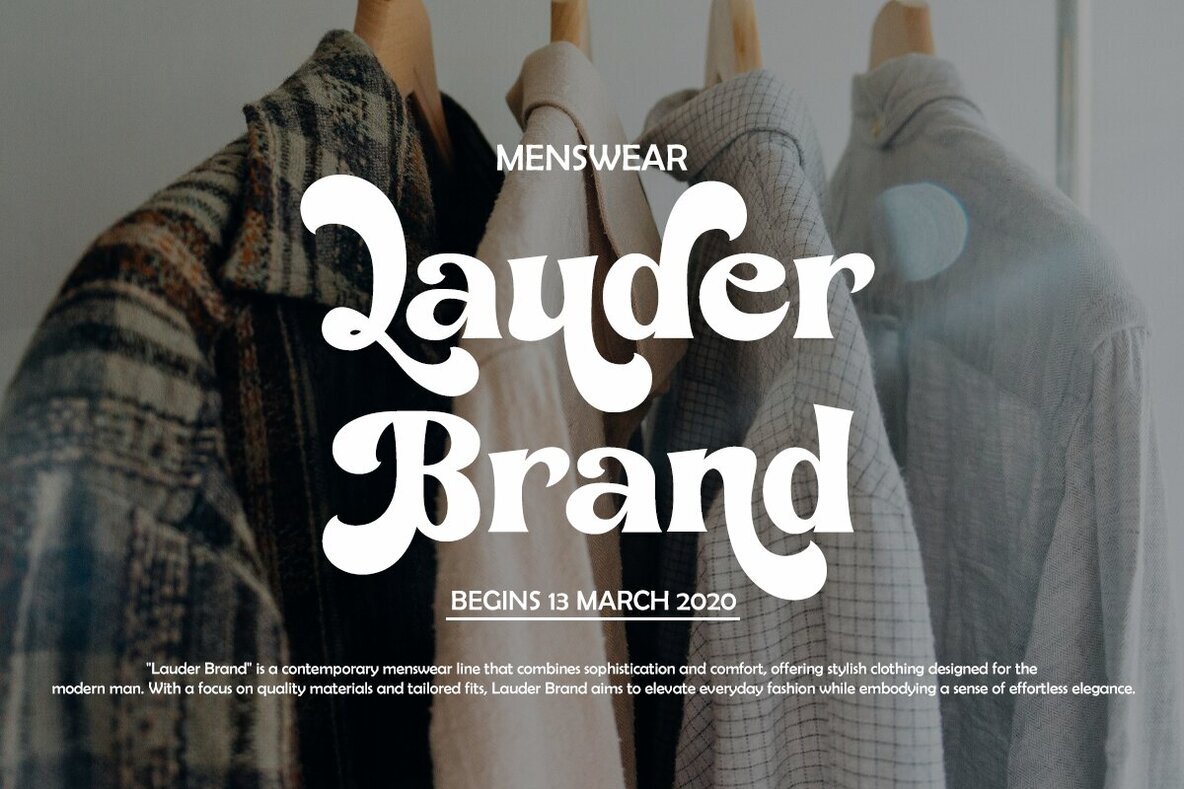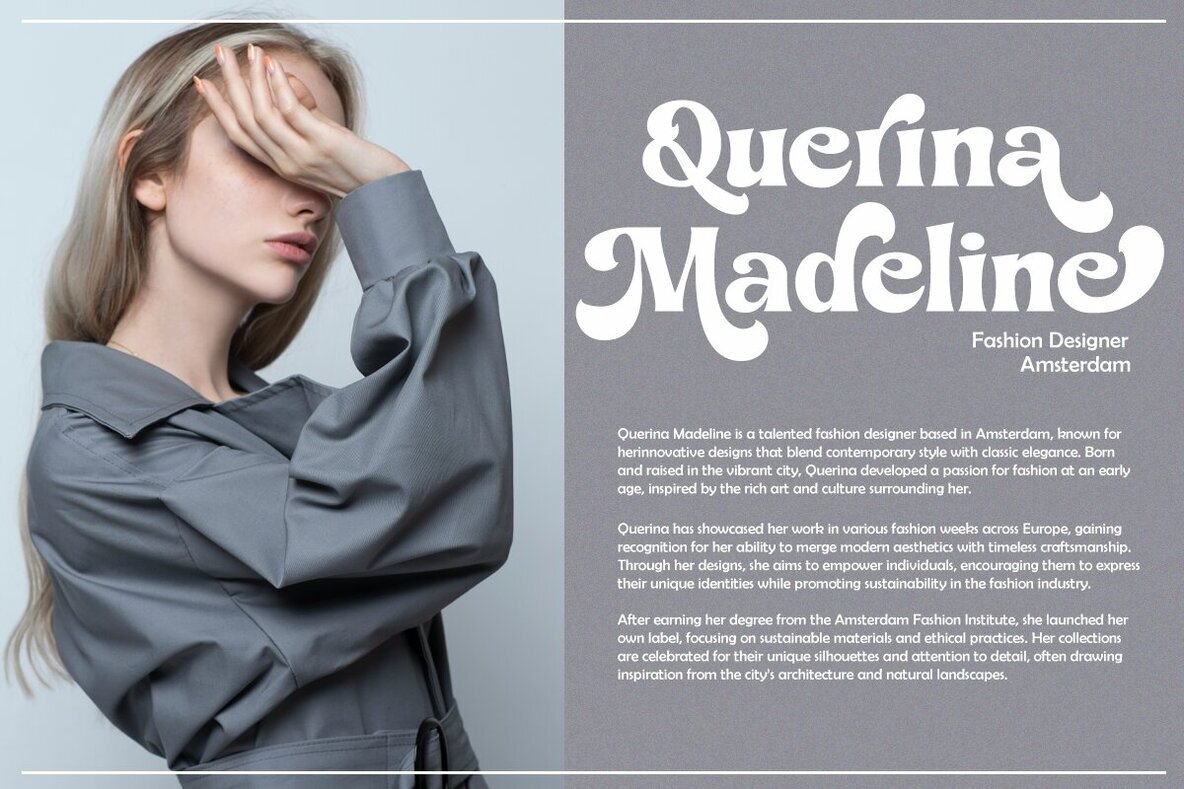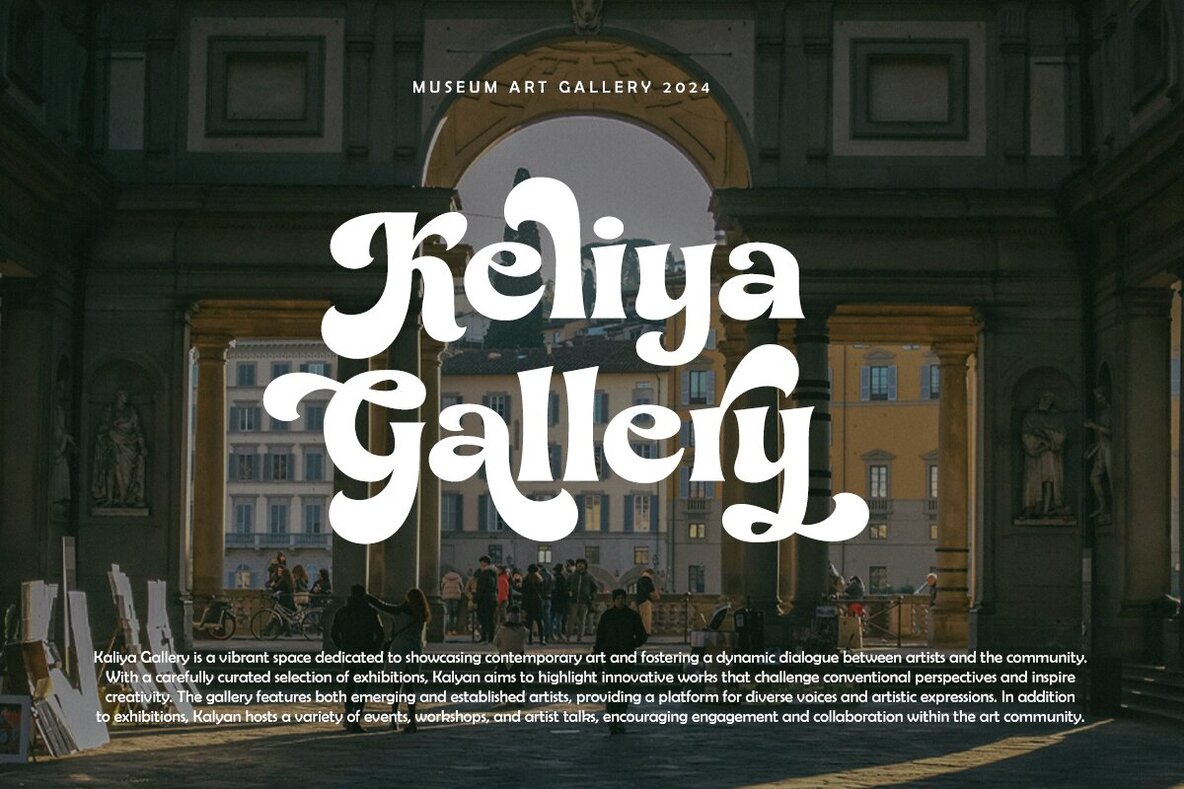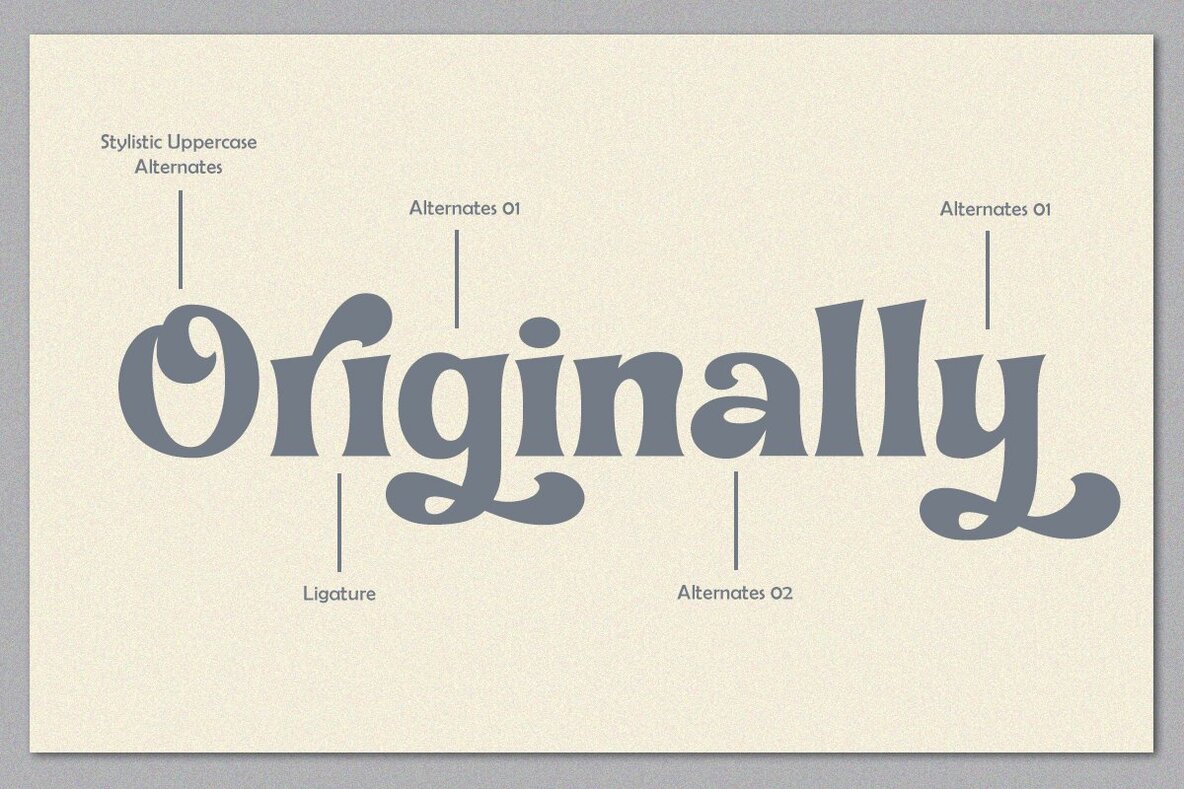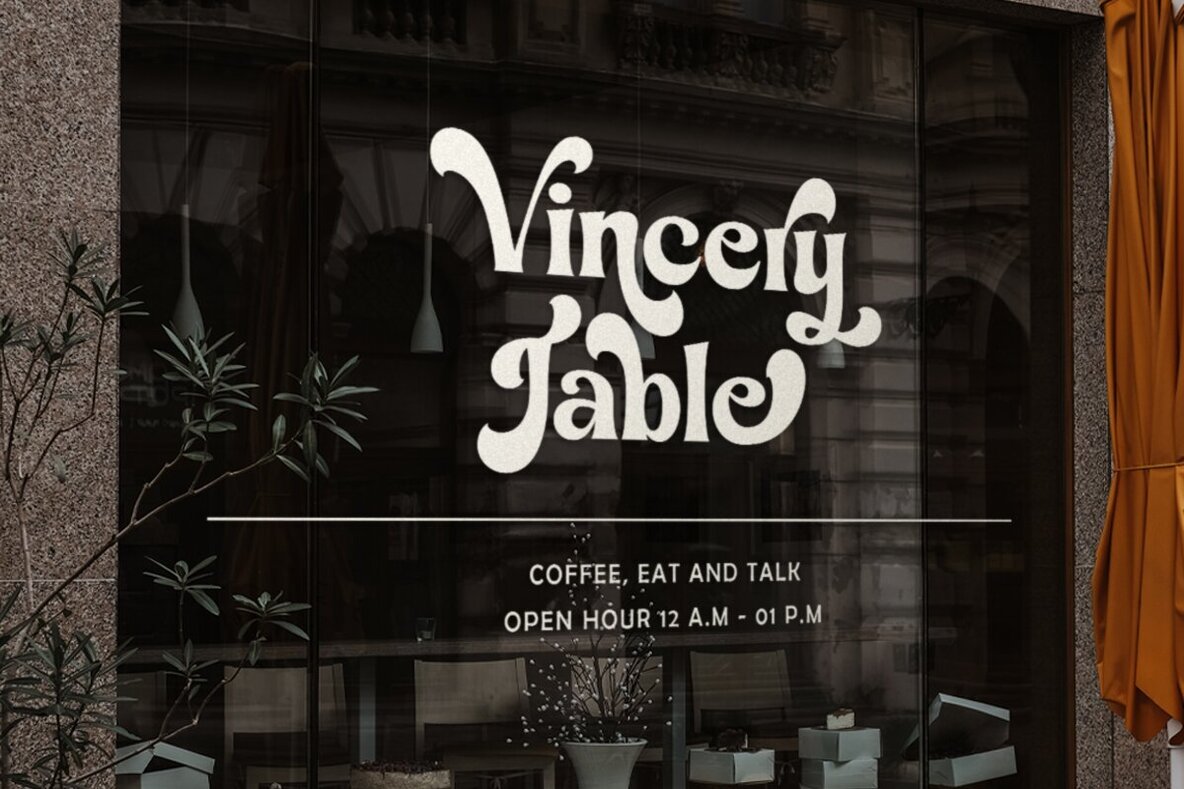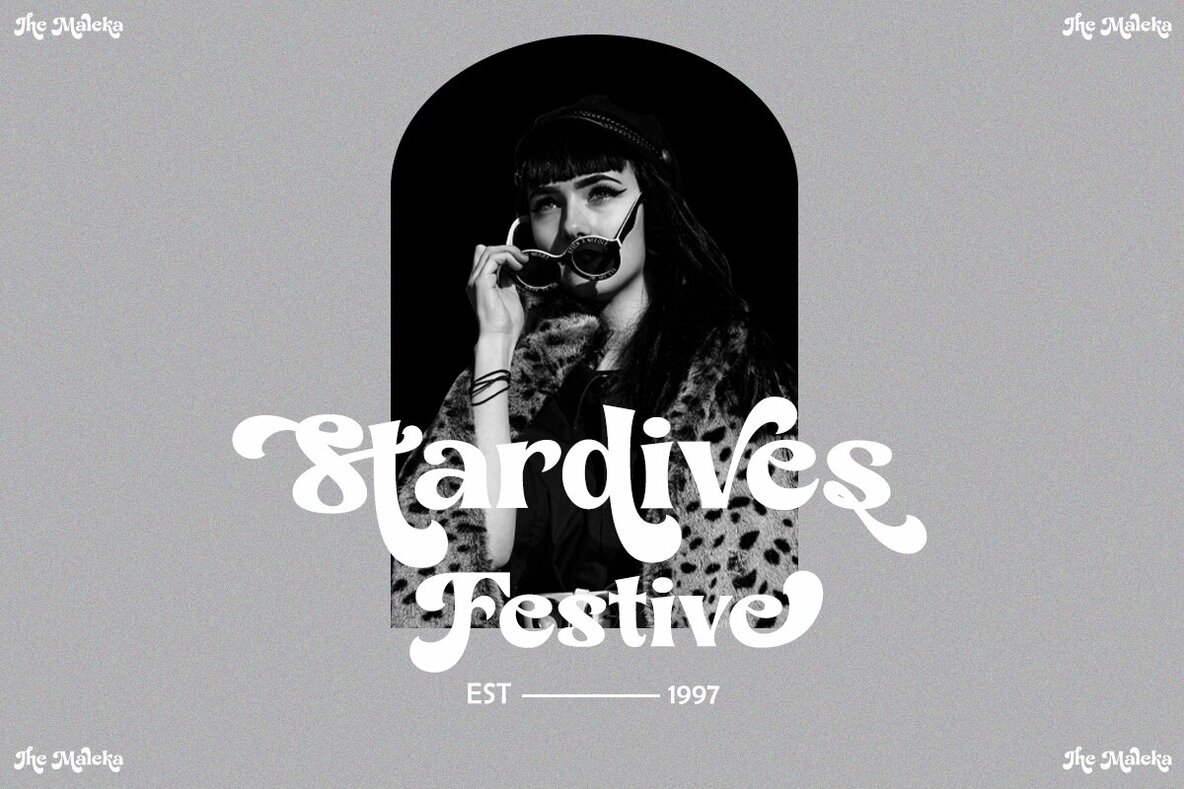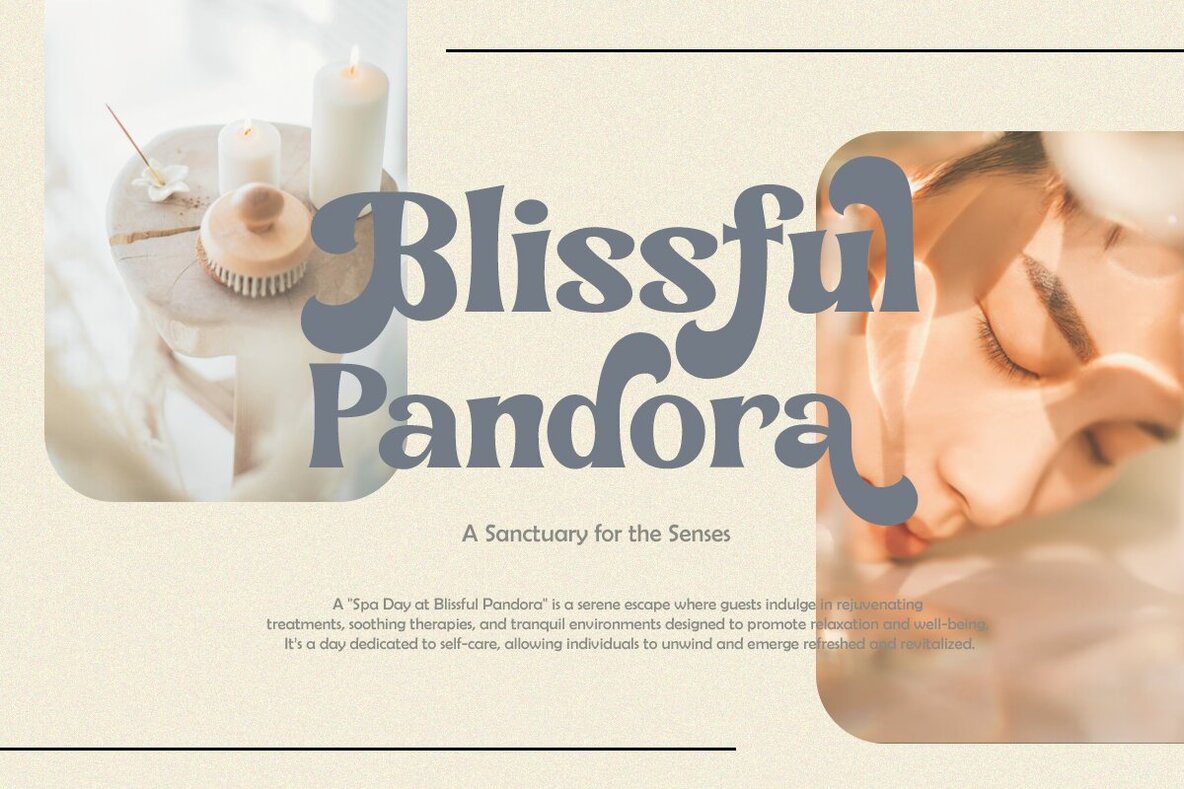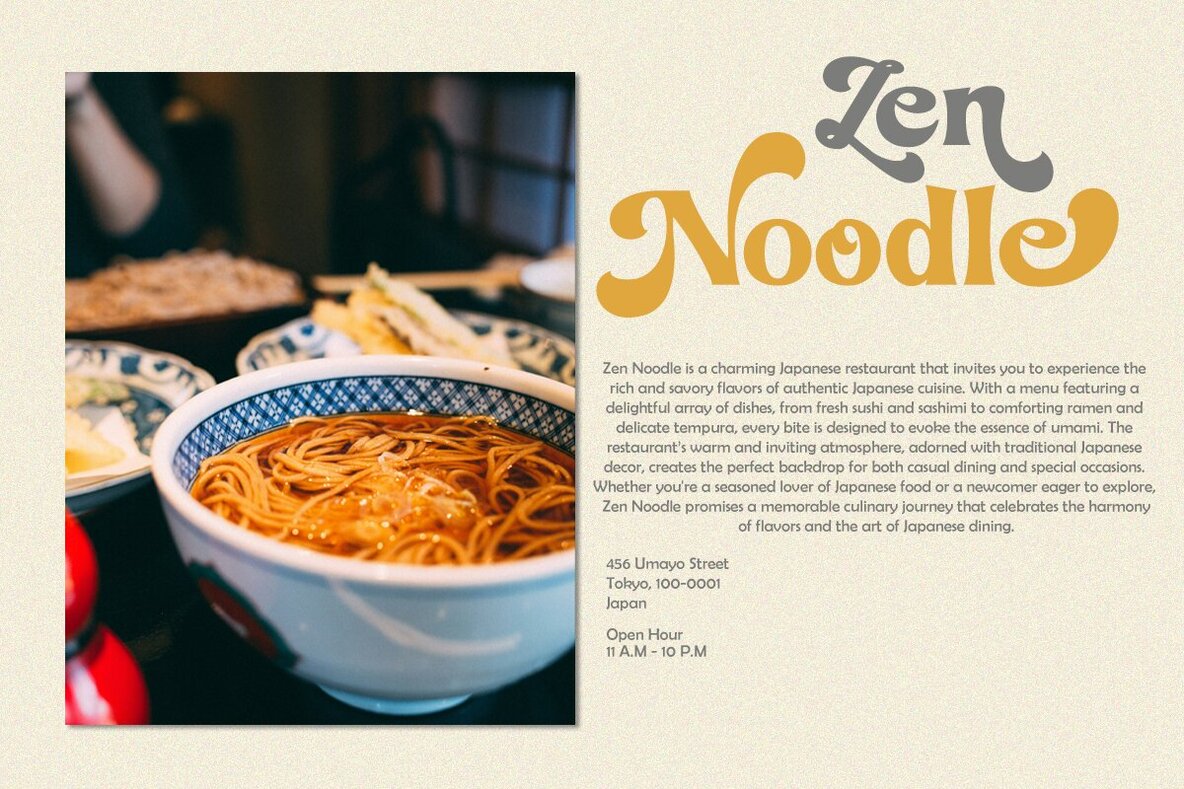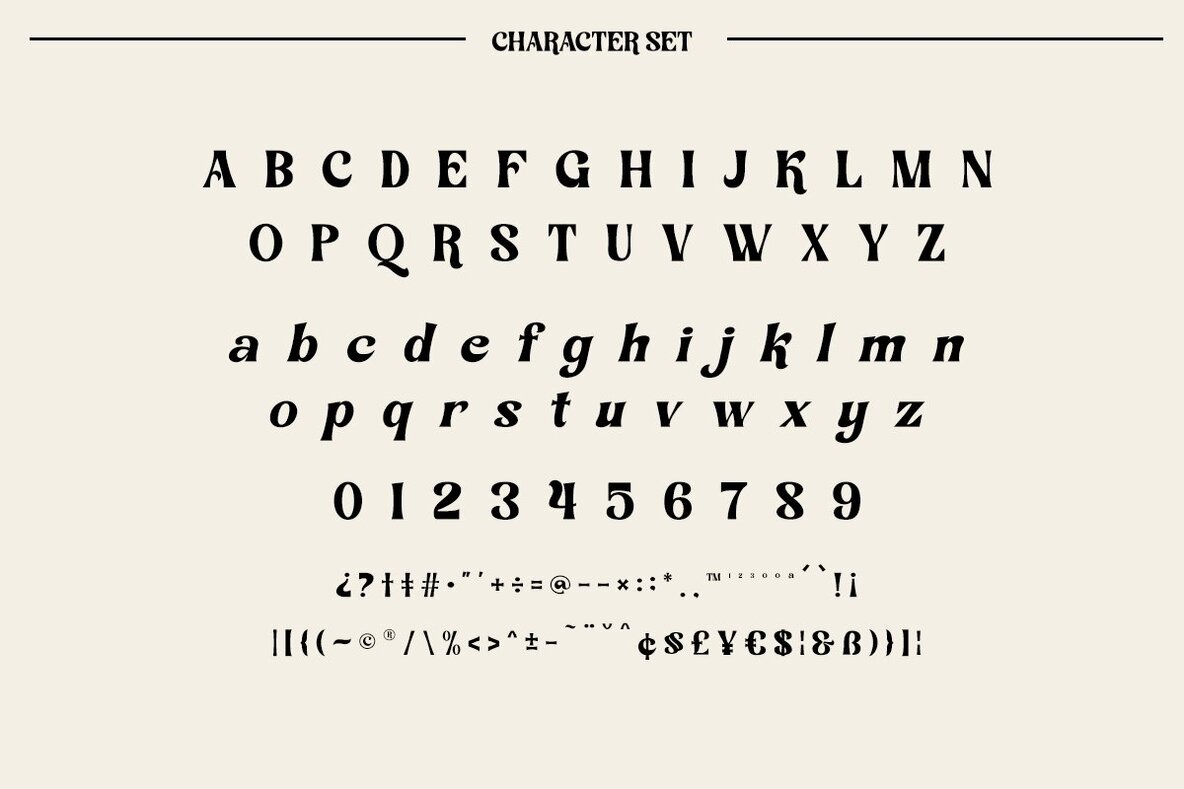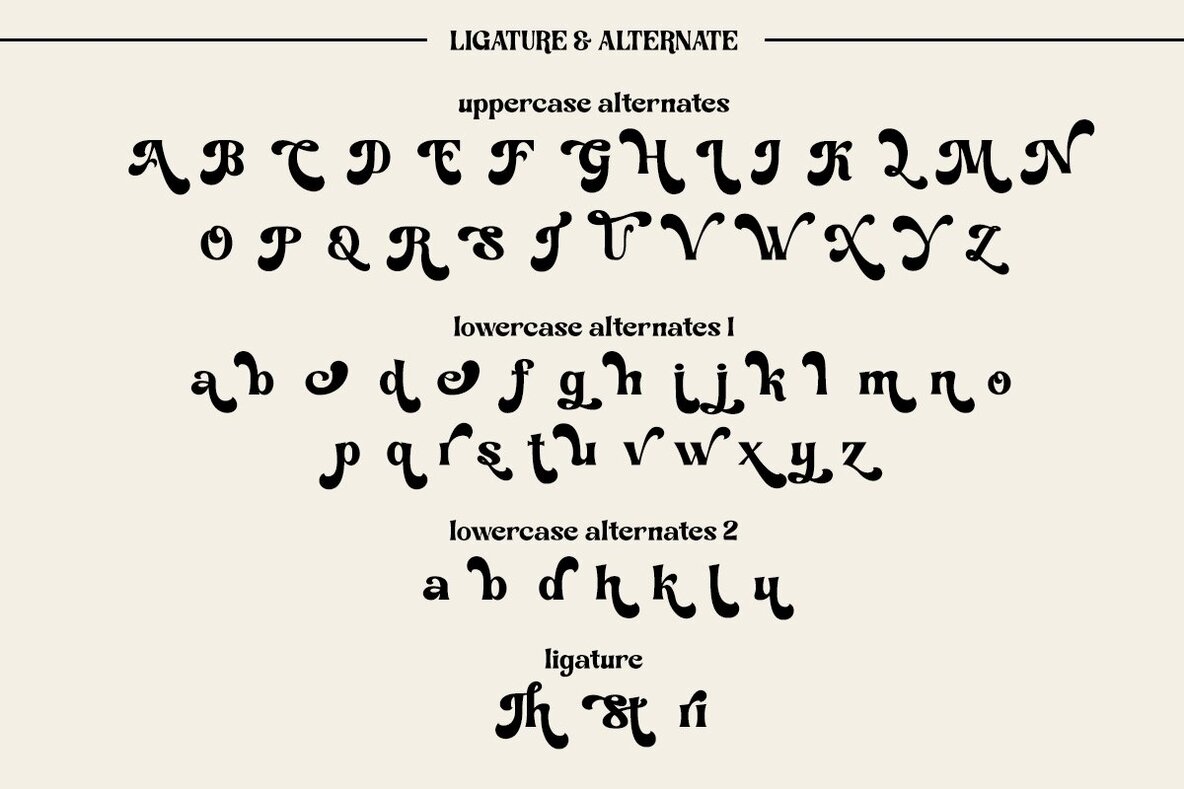
The Maleka Font
This bold serif typeface masterfully combines modern and nostalgic elements, making it perfect for a wide array of design projects. With a touch of elegance and style, it brings a chic modernity to any work, featuring a blend of contemporary and retro flair. This font is ideal for creating stunning logos, quotes, blog posts, branding projects, magazine layouts, and wedding invitations, among many other applications.
With a variety of alternatives and ligatures, this typeface offers flexibility and creativity in your designs. It includes multi-language support, standard glyphs, symbols, numbers, and is compatible with both PC and Mac systems. Its simple installation process ensures you can quickly incorporate it into your workflow. Whether crafting a bold statement or seeking a sophisticated touch, this typeface is designed to meet your needs.